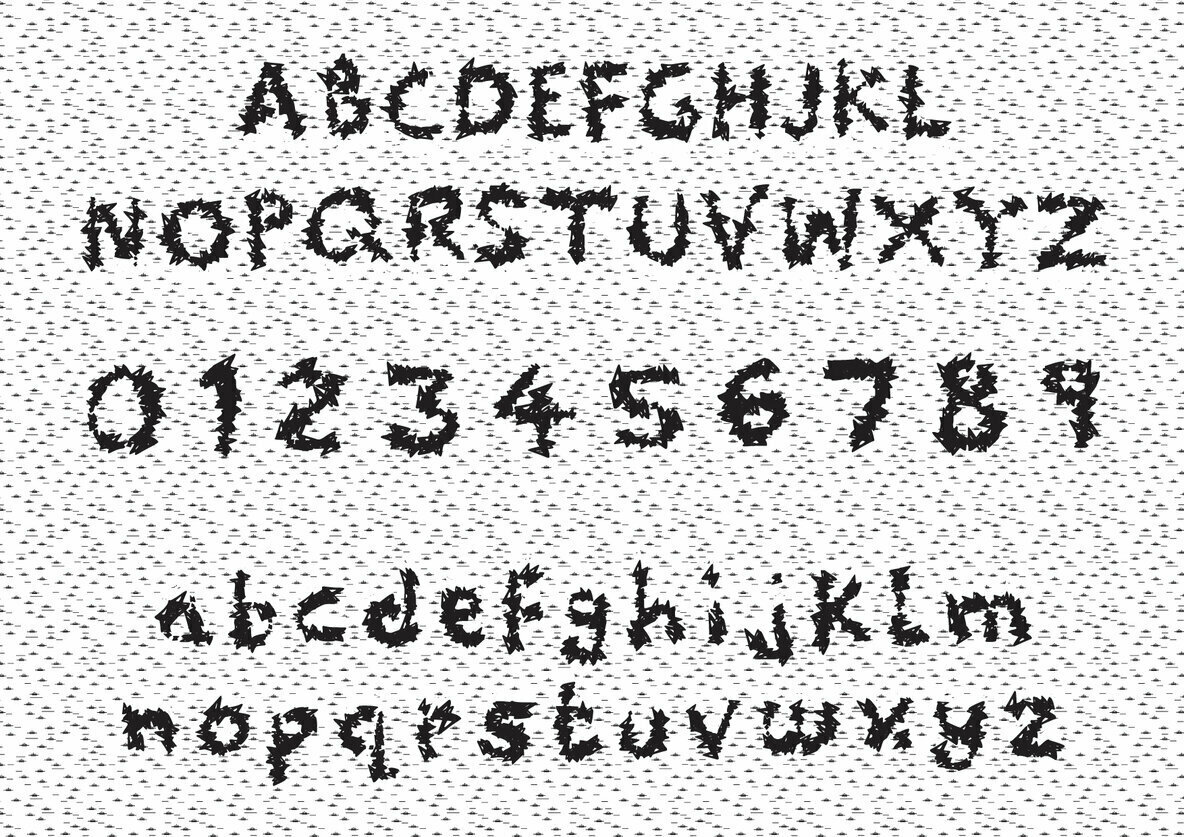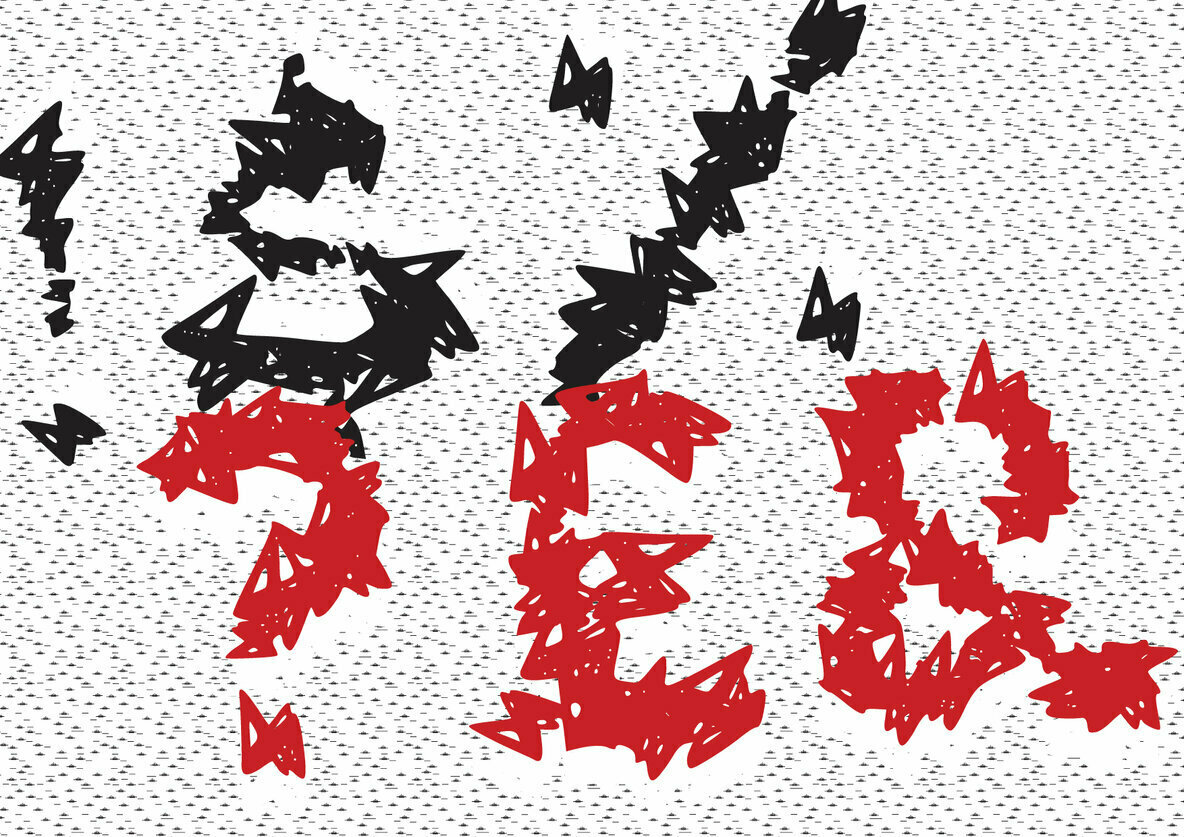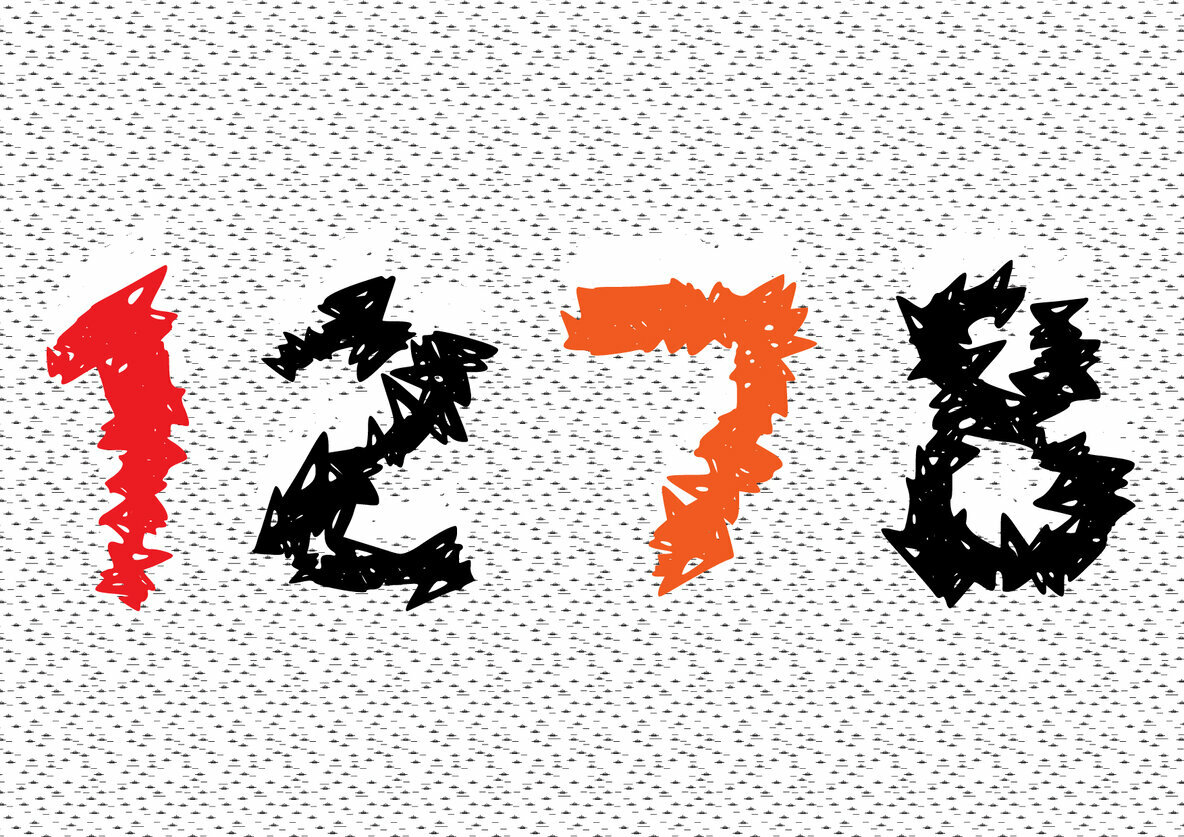
Zip Zap is a fun display font. A little bit quirky, this font is the perfect fit for all of your logos, branding, social media, and crafty DIY projects.